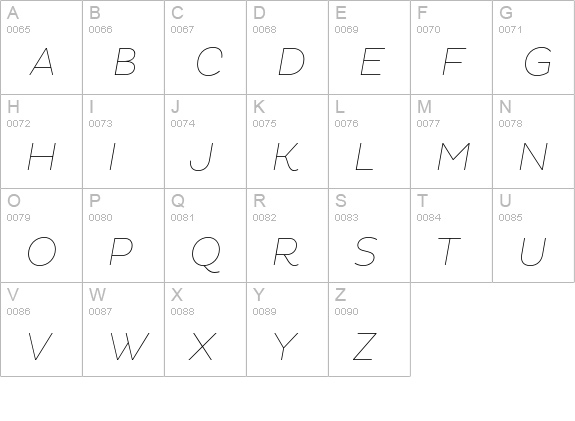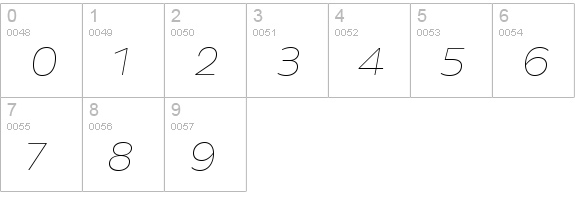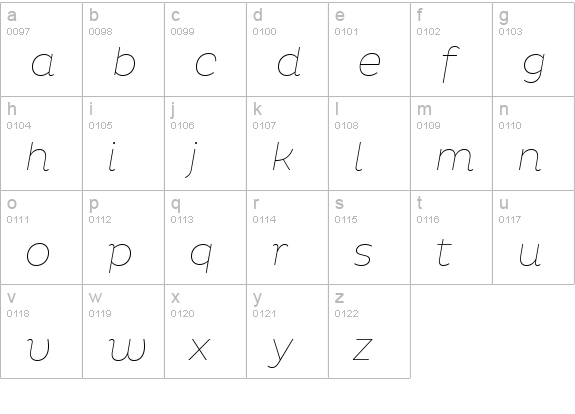
Pluto Thin Italic Font Details
Pluto Thin Italic is a delicate, low-contrast, italic variant in the Pluto typeface family \xE2\x80\x94 well suited to fashion editorial, minimal branding, and high-contrast display.
Introducing Pluto Thin Italic font – a sleek and elegant typeface designed to add a touch of sophistication to your projects. With its delicate and modern italic style, Pluto Thin Italic exudes a sense of refinement and charm that is perfect for use in branding, editorial design, and creative projects. This versatile font features clean lines, subtle curves, and a contemporary aesthetic that will give your designs a fresh and modern look. Whether you're creating logos, social media graphics, or website headers, Pluto Thin Italic is sure to make a statement. Best of all, Pluto Thin Italic font is available for free download at FontsMarket.com. Simply visit the website to access this stylish typeface and elevate your design projects with its timeless appeal. Don't miss out on the opportunity to enhance your work with the beauty and elegance of Pluto Thin Italic font today.